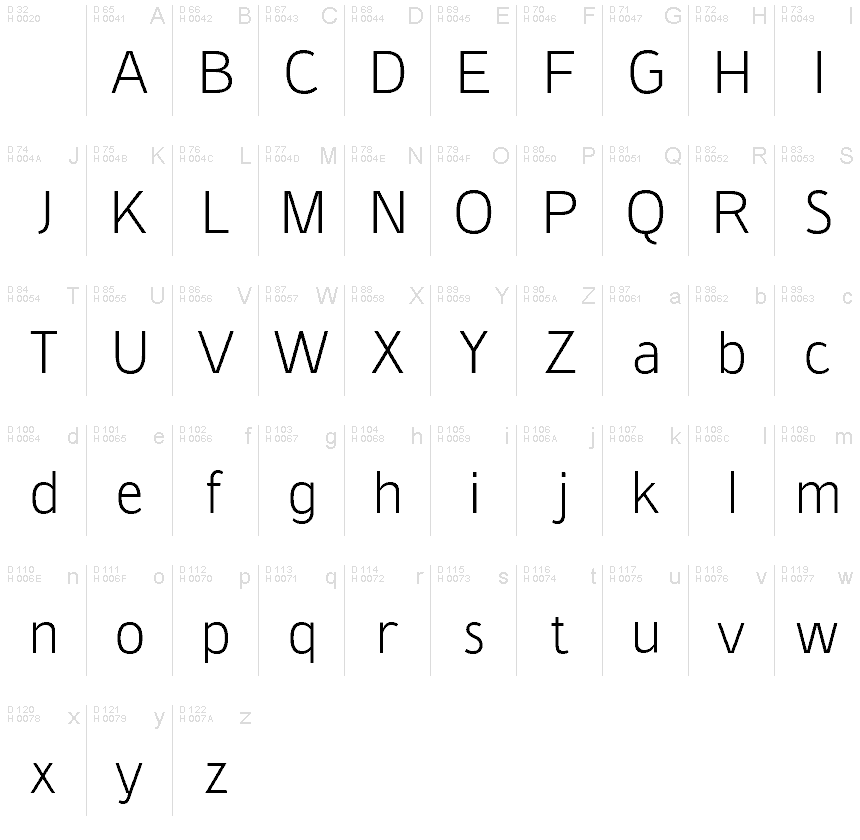
CS Loreto Regular Demo
CS Loreto font by Craft Supply Co. is a one-of-a-kind light free sans serif font with a curious look that reflects on its letters. The set enjoys creativity, originality, and elegance, making it an exclusive addition to this special craft type suitable for modern and minimalistic projects.
CS Loreto works as the main title for poster designs as well as with other texts in business cards, postcards, stationery designs, branding presentations, and packaging designs. Use CS Loreto in magazines or online blogs about interior design or home tools along with catalogs/booklet covers.